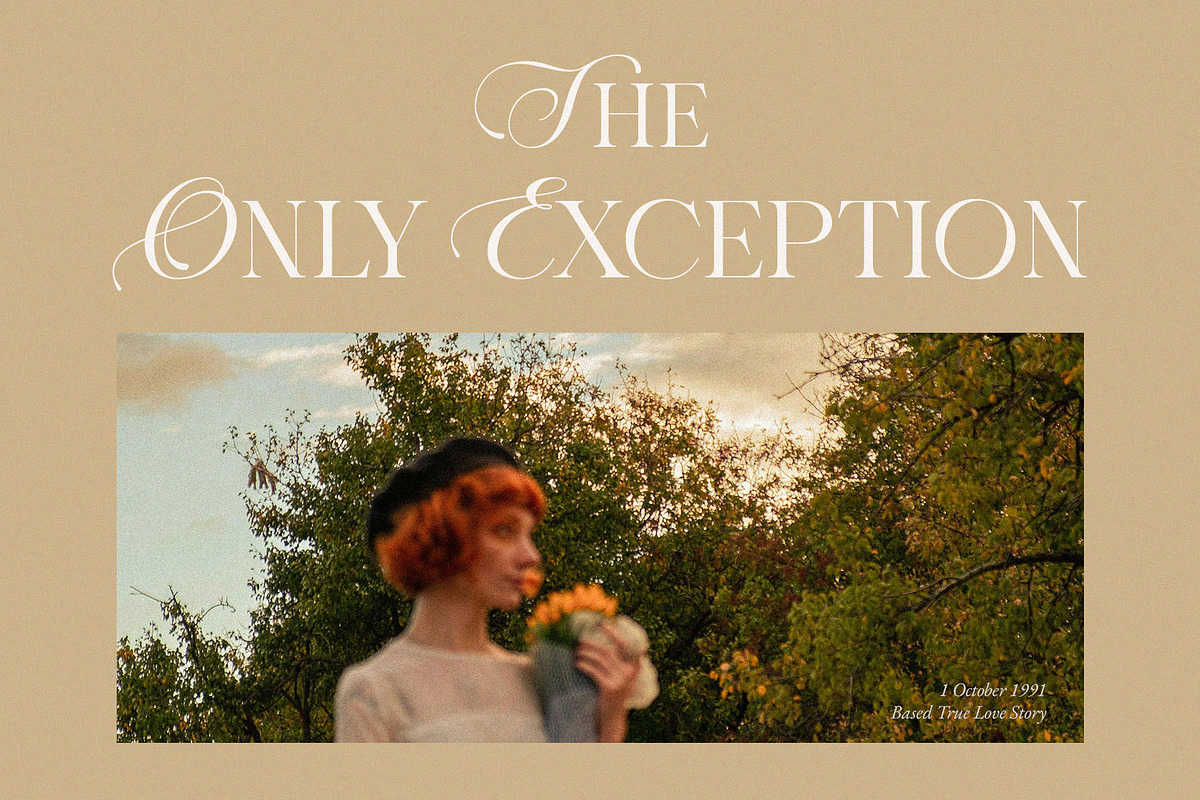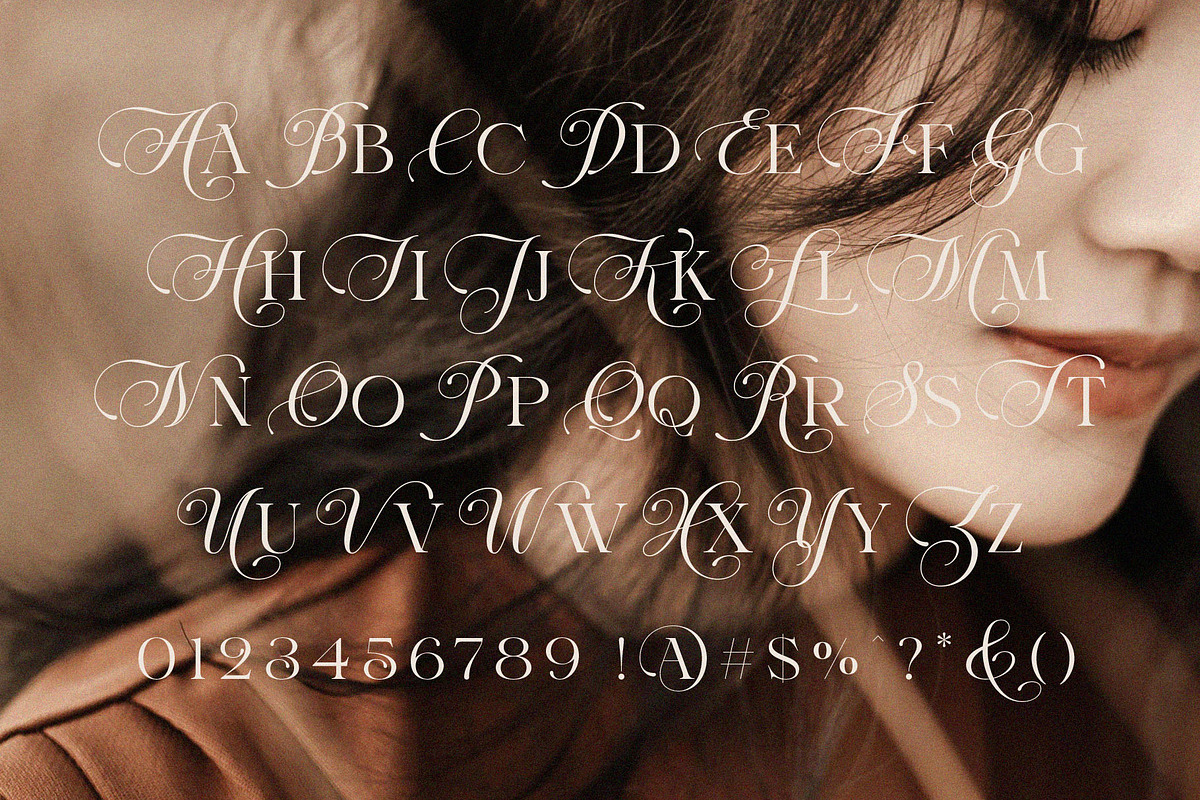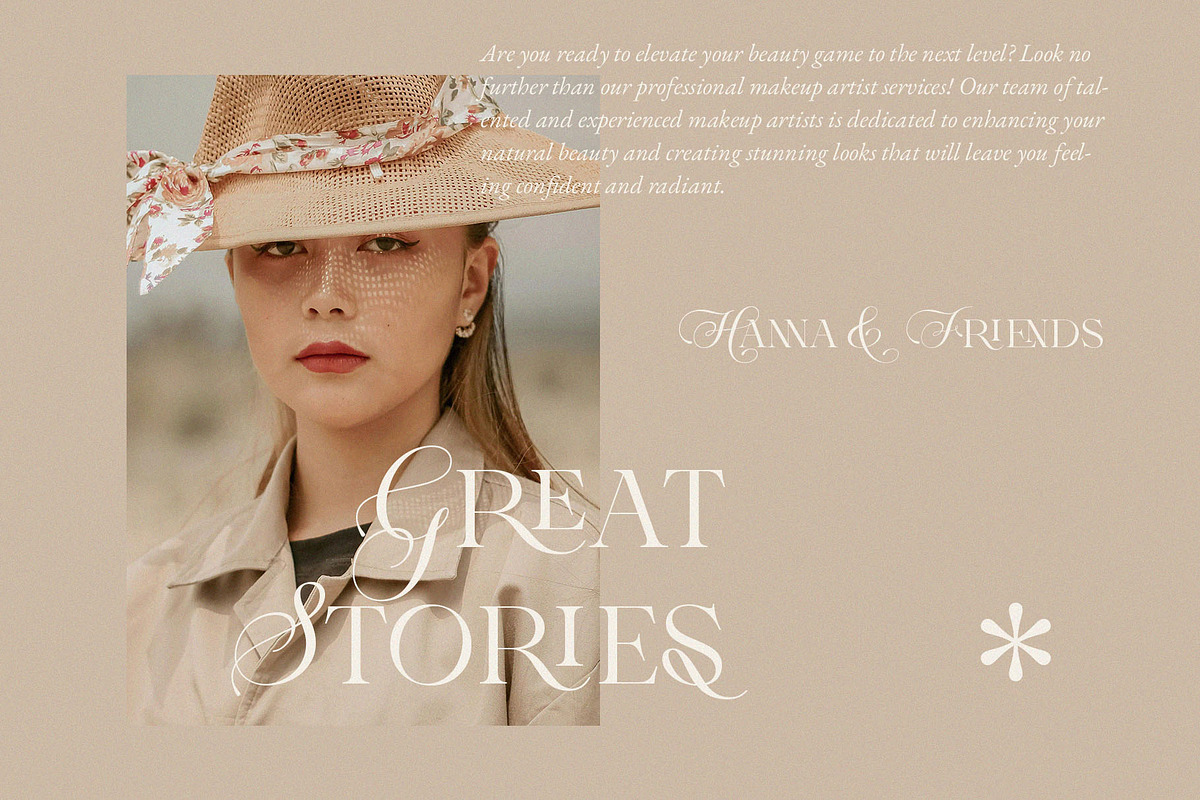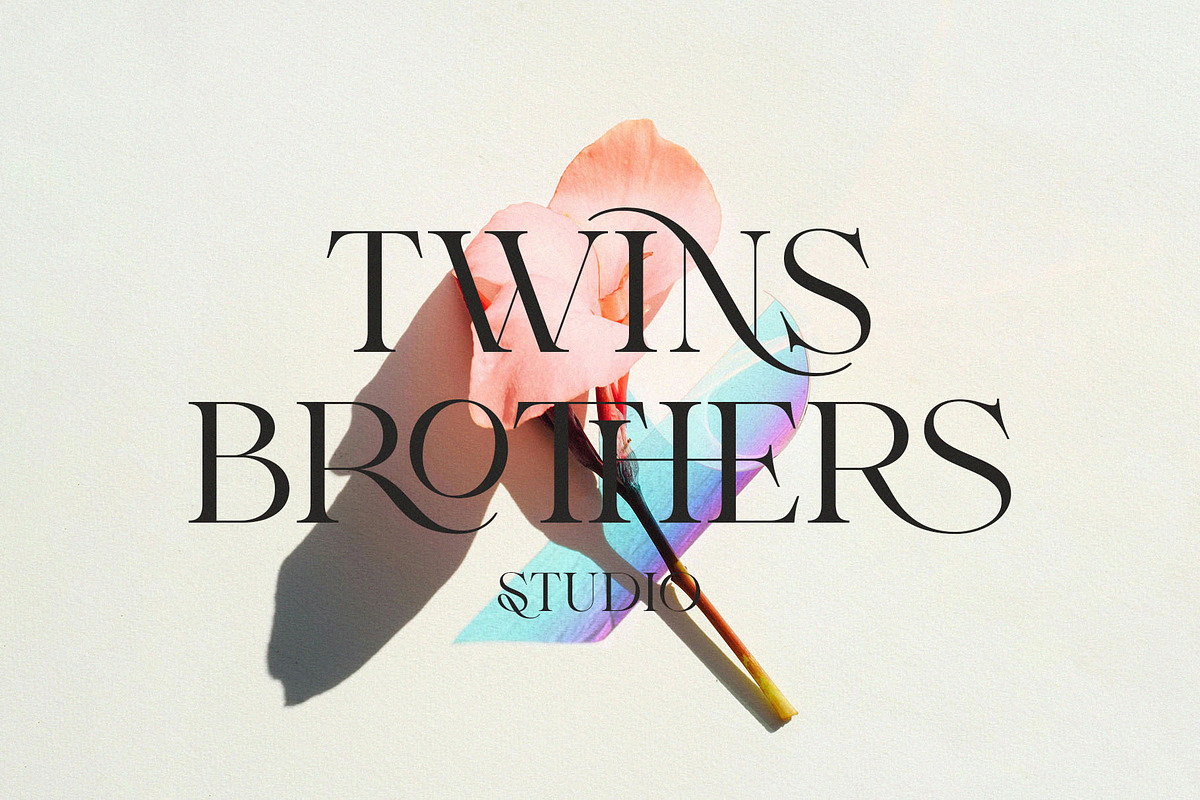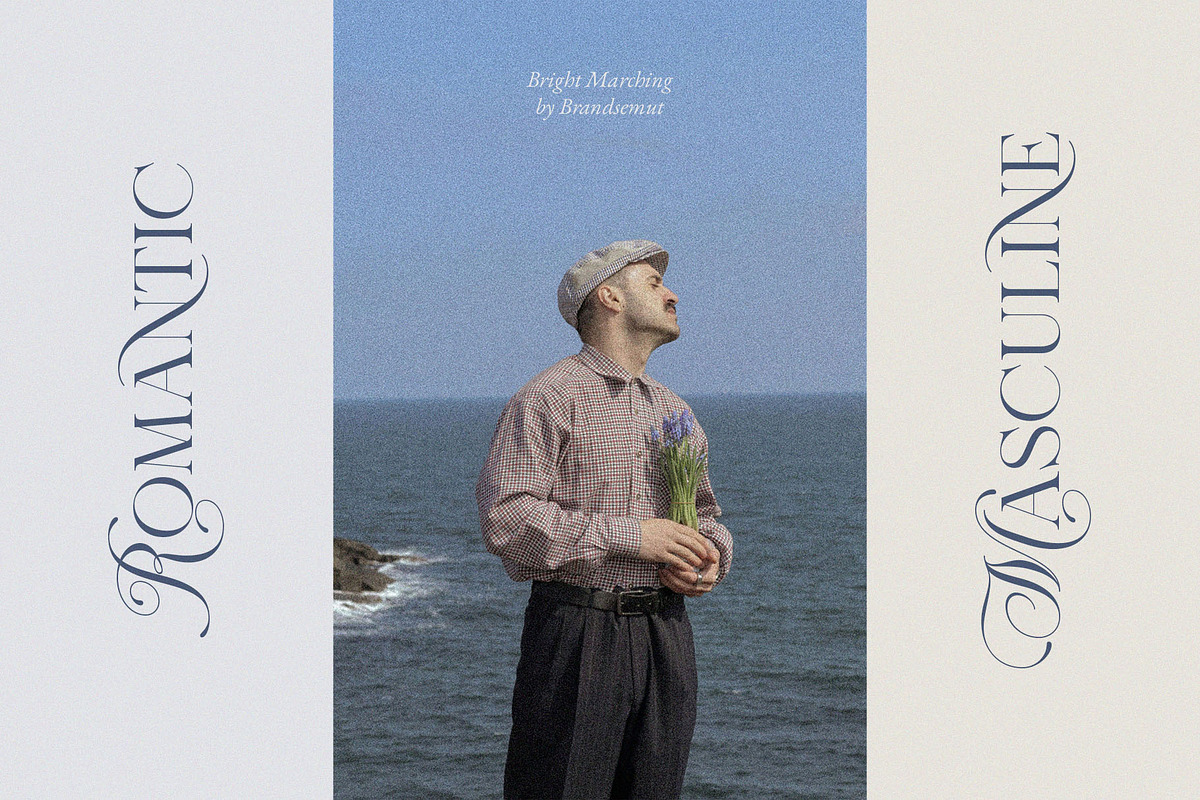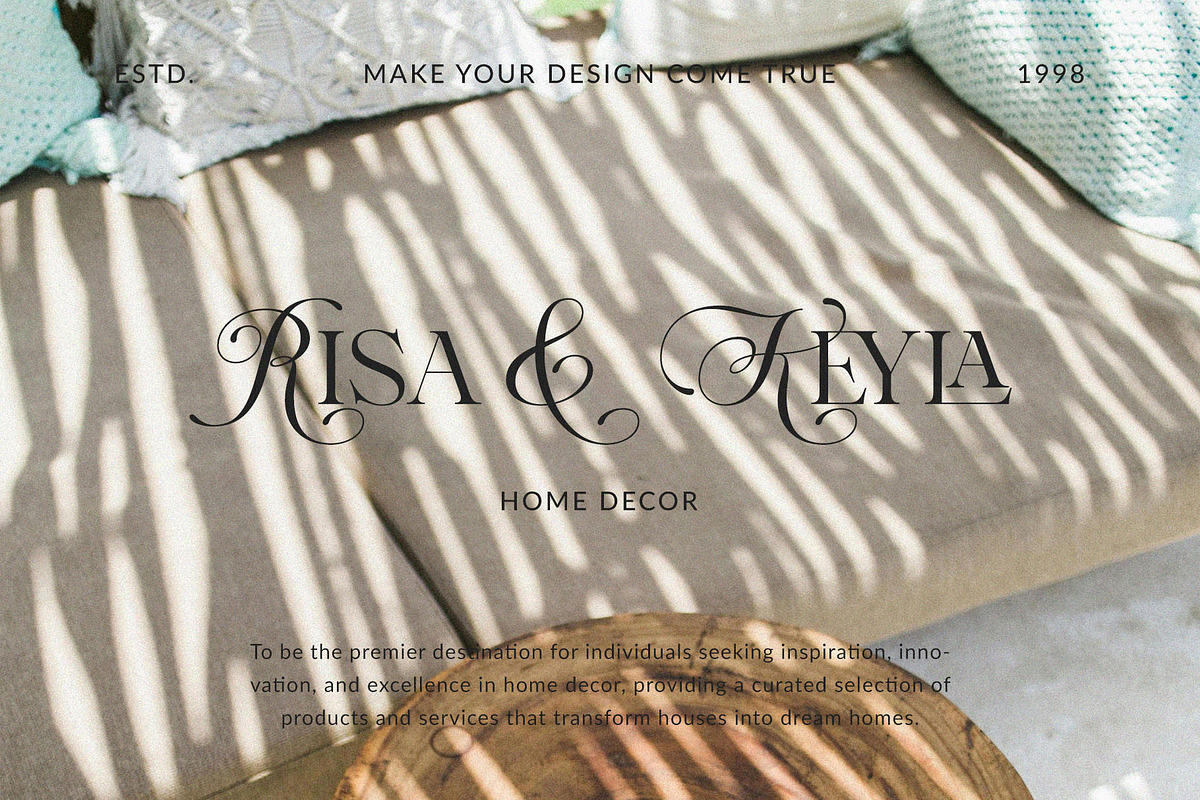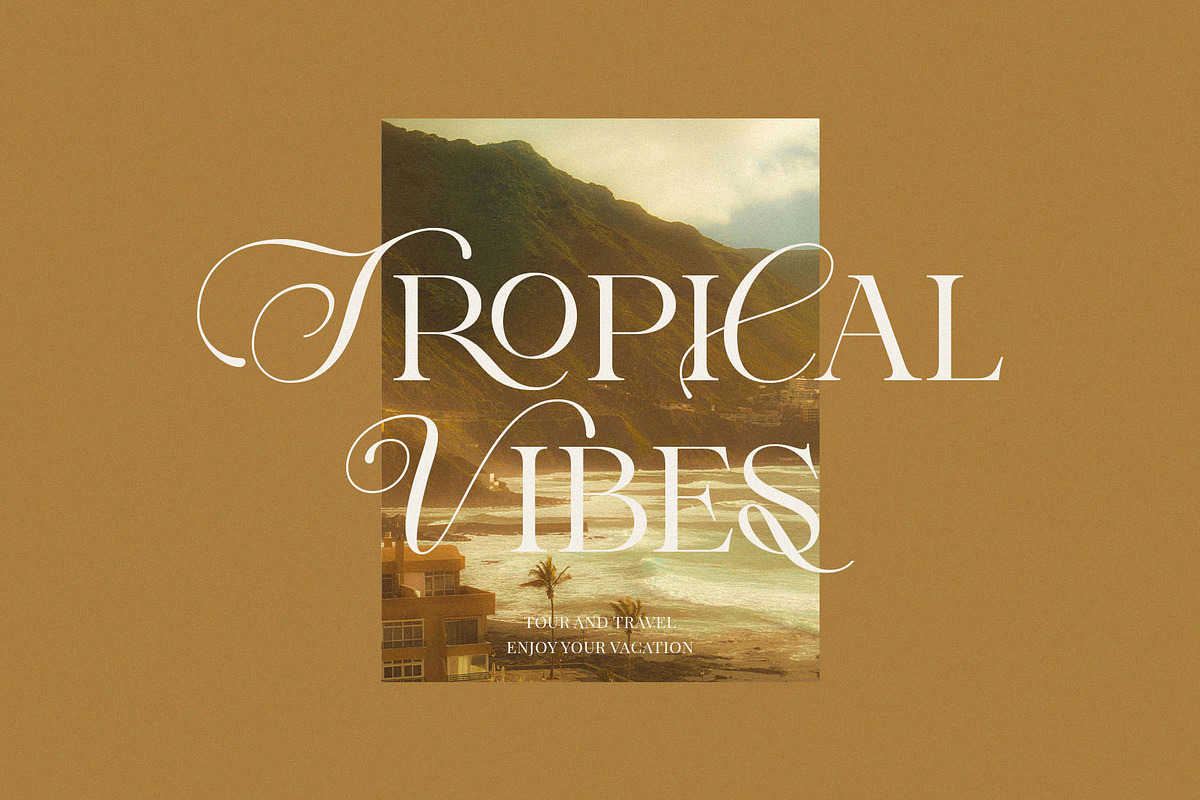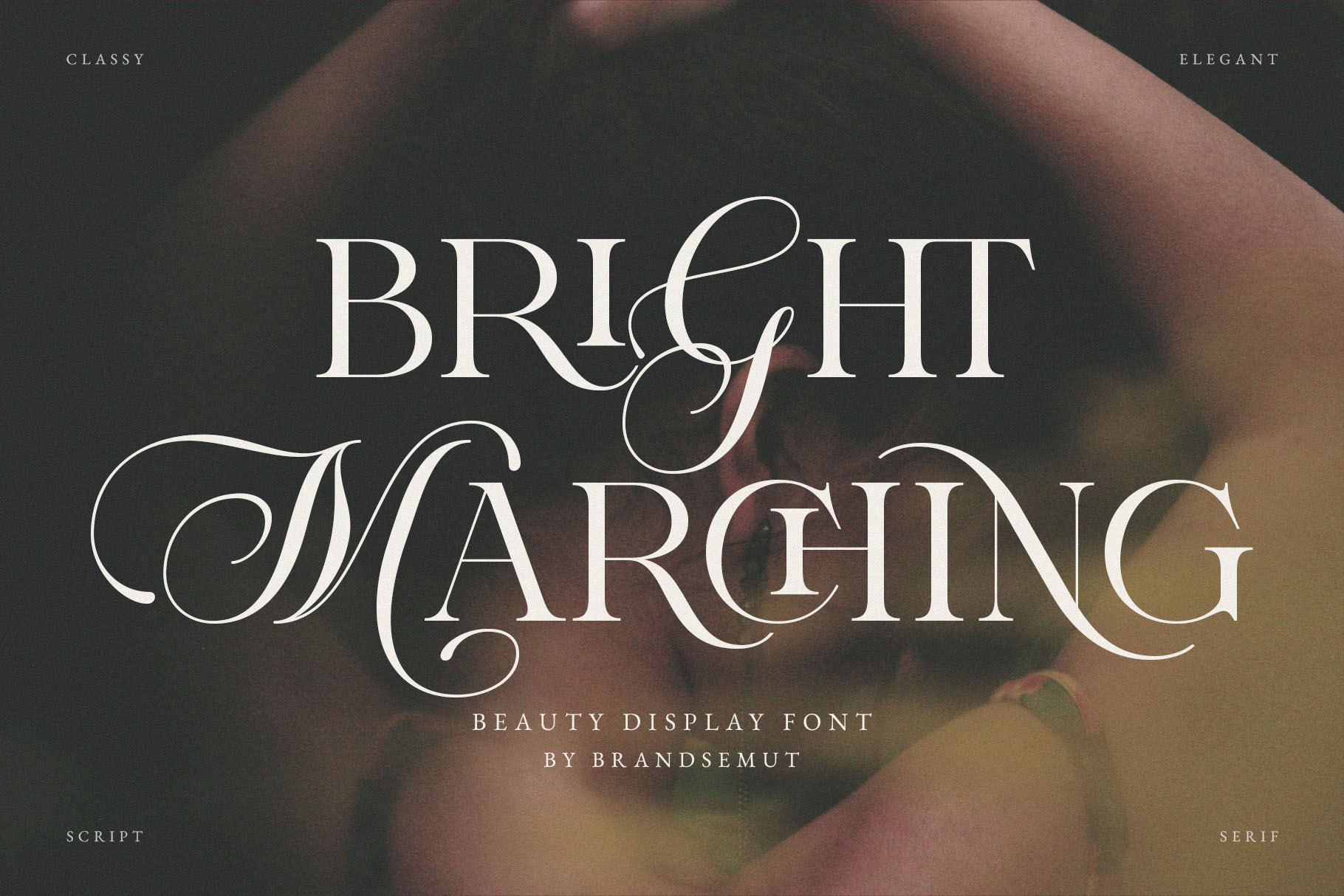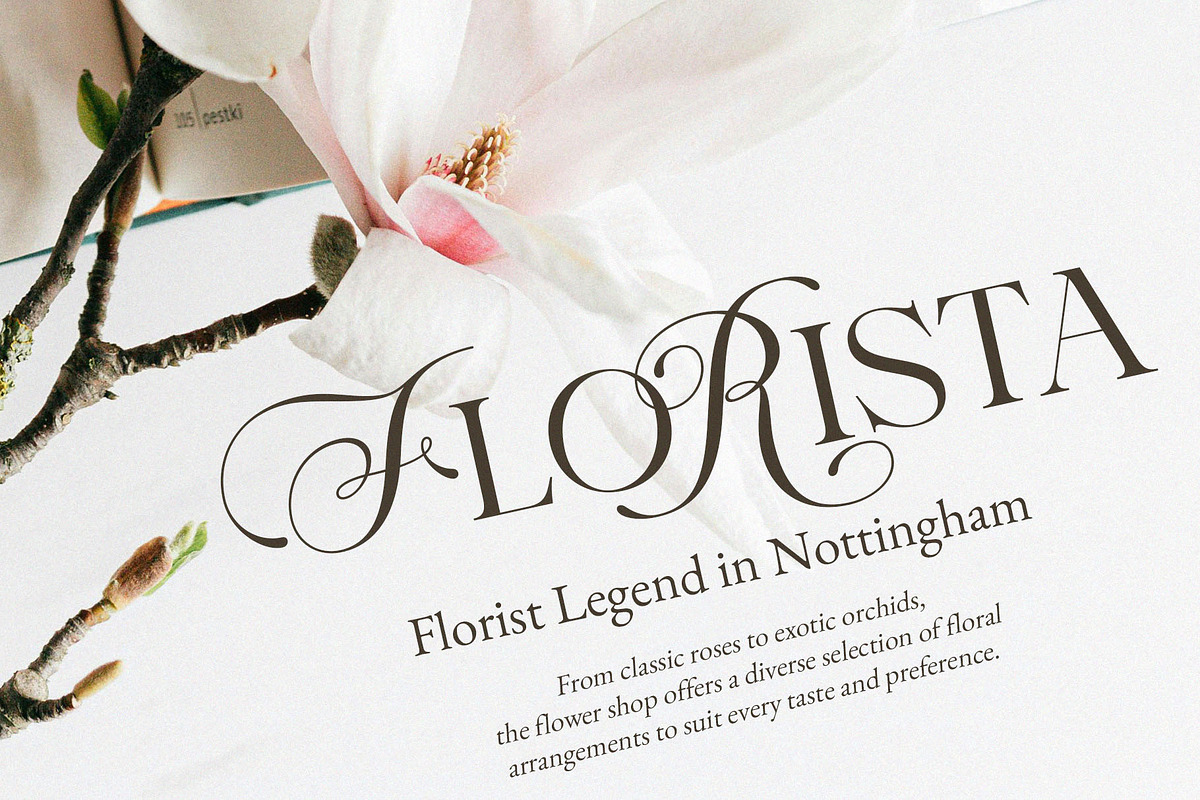
Bright Marching Beauty Display Font
Introducing Bright Marching Beauty Display Font. Bright Marching is a elegant and stylish display serif and script with rich stylistic alternates, best used as a display for headings, logos, branding, magazines, product packaging and invitations. Bright Marching equipped with Ligature and many Alternates and come with clean lines and smooth curves give any project an extra touch of class.